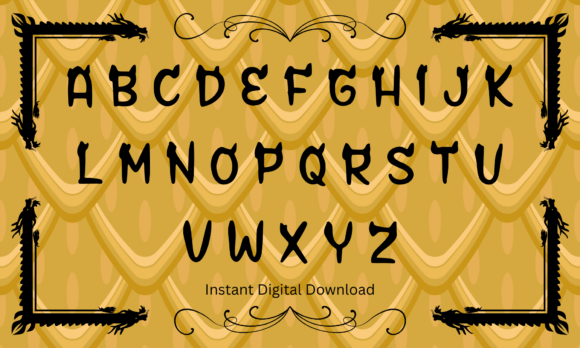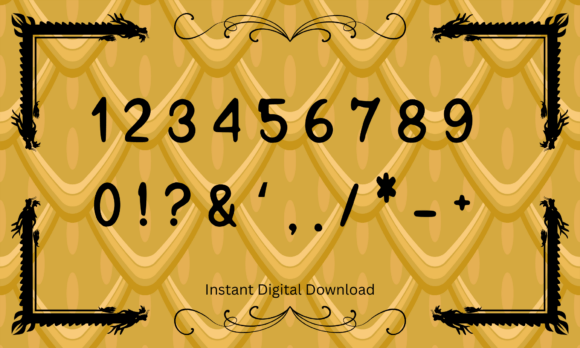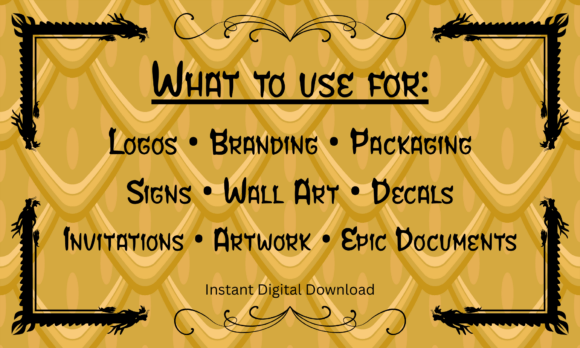
Introduction to Dragon Horn Font
Dragon Horn Font is a fantasy-inspired display typeface designed to bring mythical, medieval, and dragon-themed designs to life.
With bold letterforms and a handcrafted, fantasy-style design, this font is ideal for creators who want their designs to feel powerful, magical, and legendary Whether you’re designing for a fantasy brand, tabletop RPG materials, epic artwork, or creative documents, Dragon Horn Font delivers a strong, story-driven look that stands out instantly.
Why Choose Dragon Horn Font?